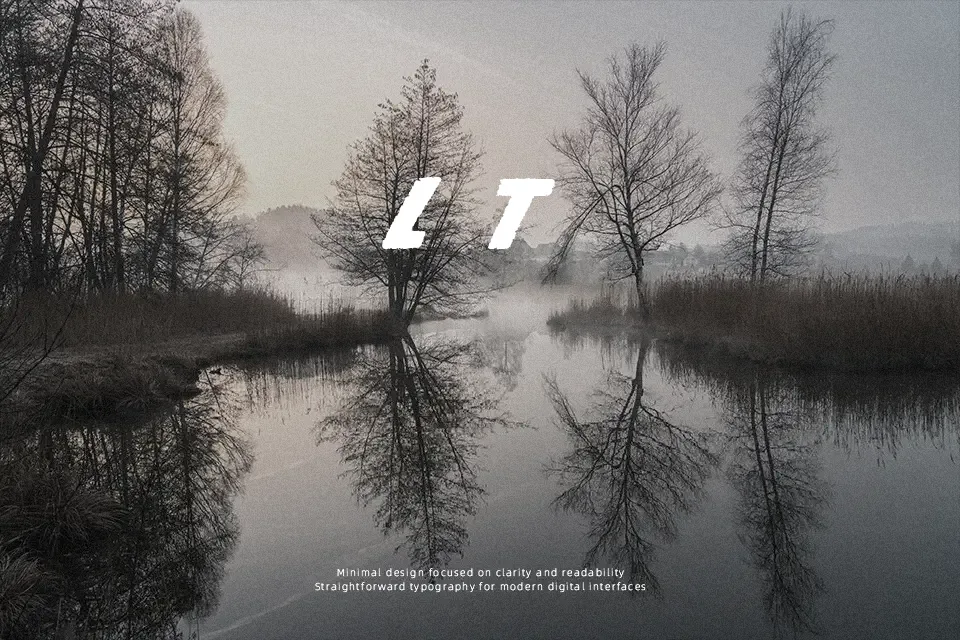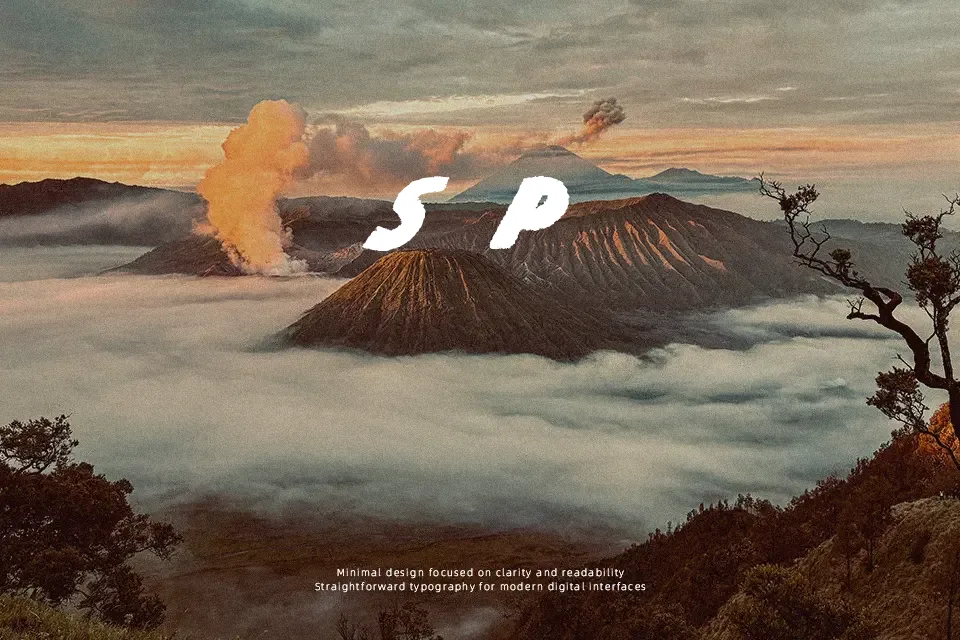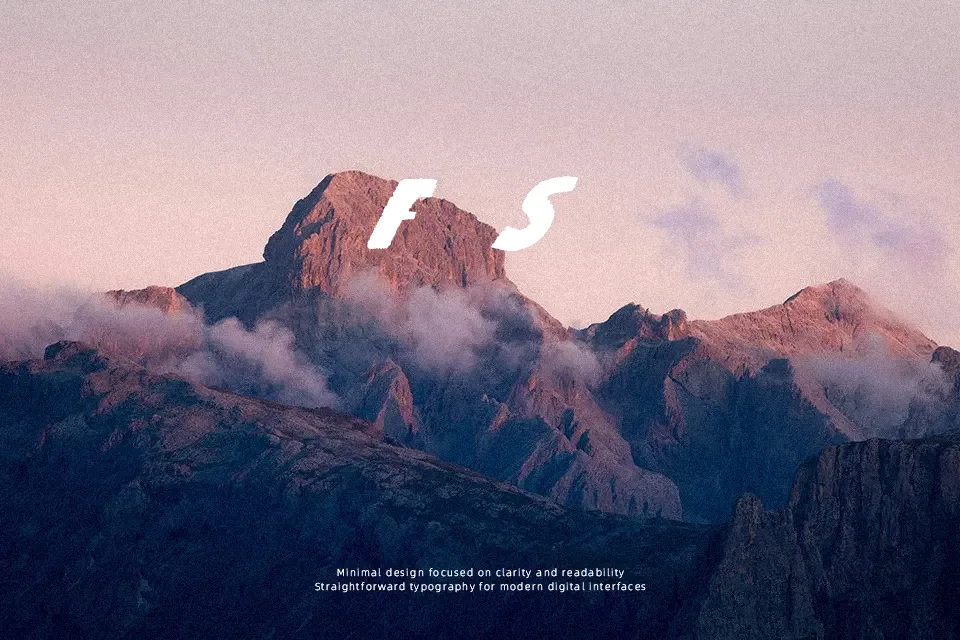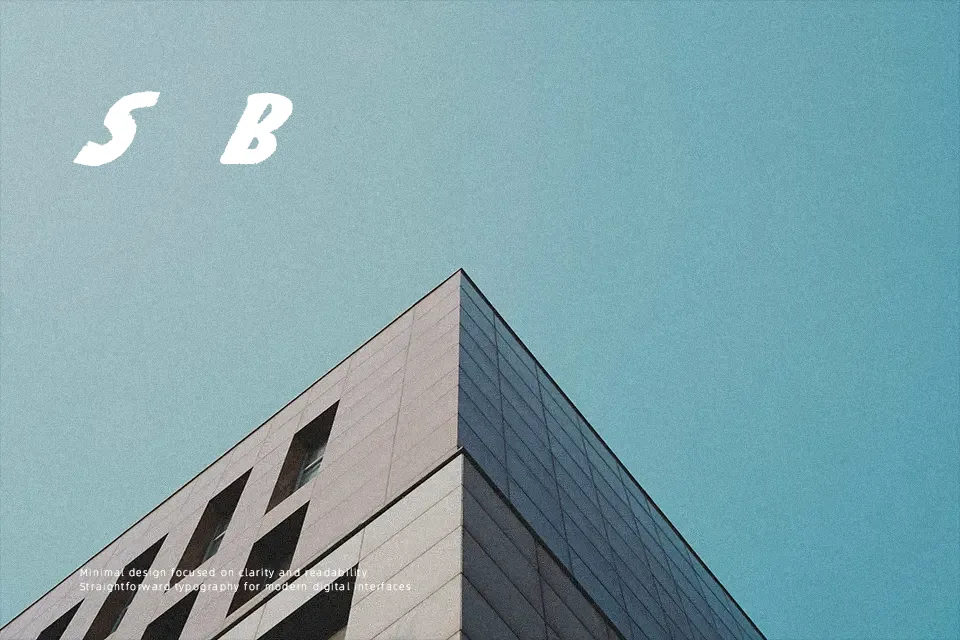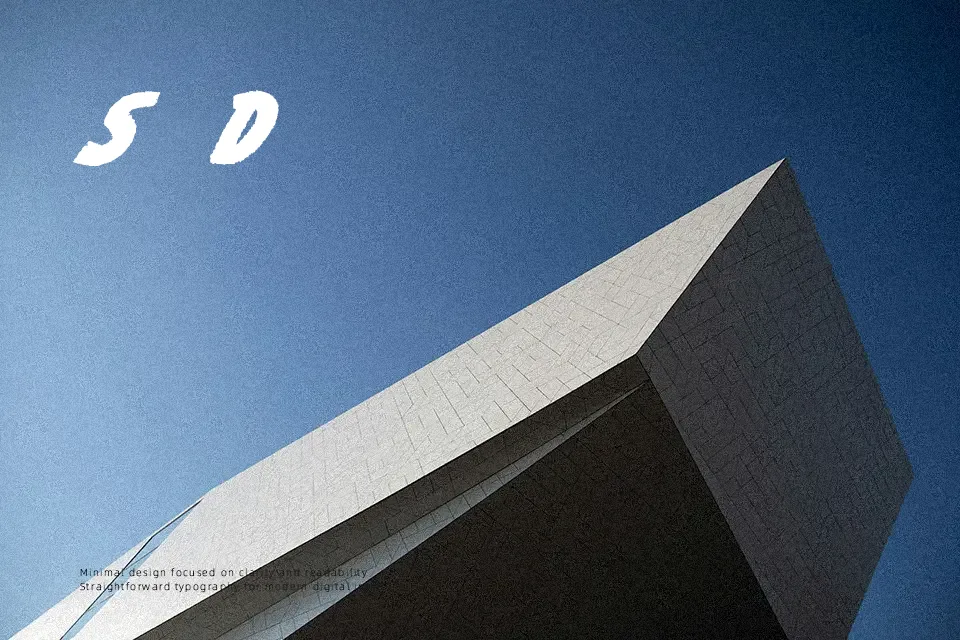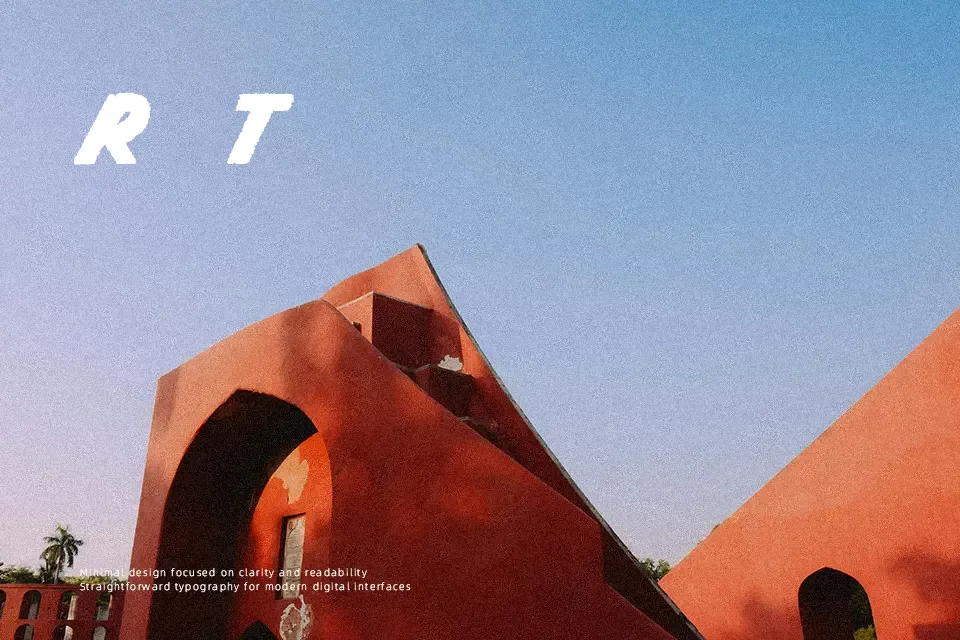
Road Of Deal Font
Road Of Deal Font immediately catches the eye with its dynamic, hand-drawn structure and slightly irregular stroke contrast. The letterforms display an organic energy, utilizing mildly condensed proportions and varying baseline alignments to create a casual yet impactful rhythm. The spacing helps maintain clarity in larger headlines, allowing the expressive terminals to stand out naturally. However, these decorative details become less effective at smaller sizes, significantly reducing legibility during continuous reading. This decorative typeface shines in creative branding, event posters, and expressive packaging designs where a strong visual personality is required. Its unique strokes bring an artistic flair to any display-focused project, ensuring your main message remains highly memorable.
music festival posters, expressive packaging designs, website hero headlines, creative branding
long paragraph text, small interface labels, spreadsheet data, technical manuals
Perfect for branding, headline, and packaging, with a artistic and decorative style.